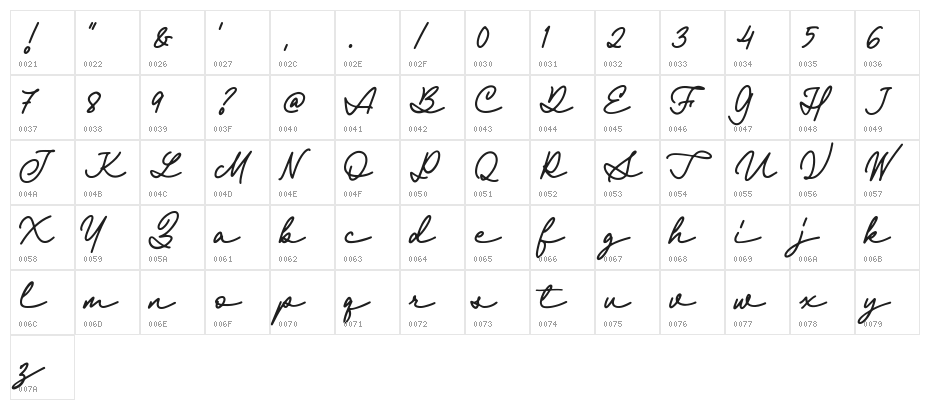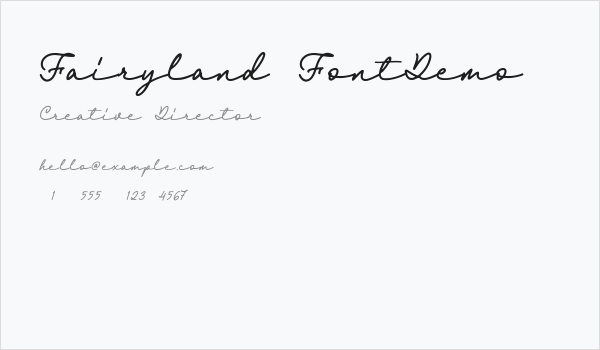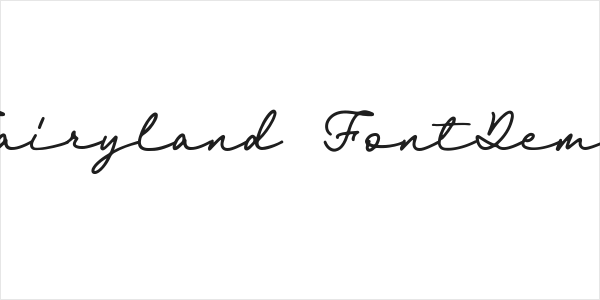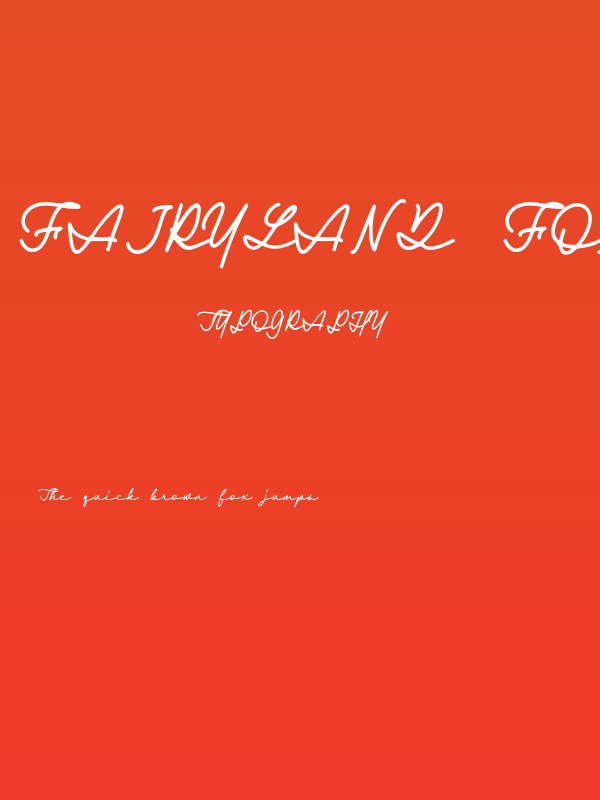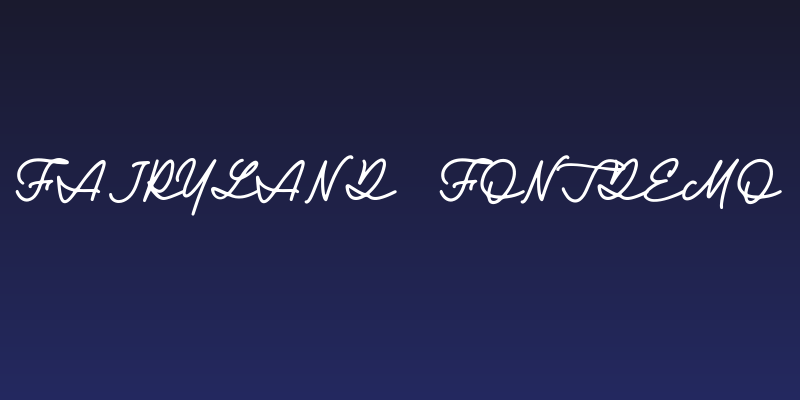
Fairyland-FontDemo Font
Fairyland-FontDemo Description
This font exudes a whimsical and elegant charm, characterized by its flowing, cursive script style. The letters are interconnected with smooth, sweeping strokes that give it a handwritten appearance. The uppercase letters are slightly more embellished, with graceful loops and curves, while the lowercase letters maintain a consistent fluidity. The numerals and special characters are crafted with the same attention to detail, ensuring a cohesive look throughout. This font is perfect for projects that require a touch of sophistication and creativity.
| Proposed Projects | Ideal for wedding invitations, greeting cards, personal branding, and creative projects that require a touch of elegance. |